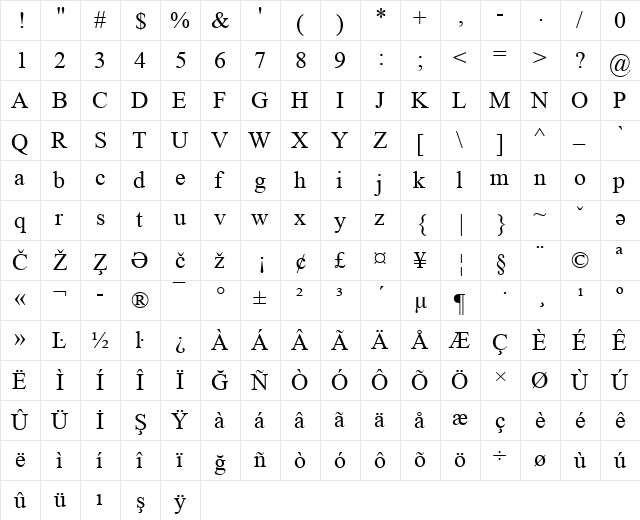
Times of the West Regular
| Designer | Monotype Type Drawing Office - Stanley Morison, Victor Lardent 1932 |
Design Context for Times of the West Typeface
Times of the West is a composed and adaptable typeface that performs quietly and consistently across a wide range of design contexts.